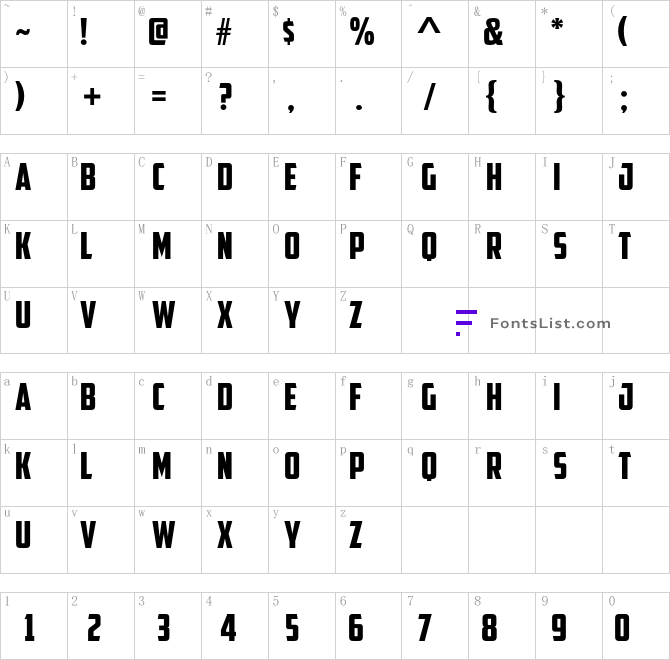
- Font Name:American Captain
American-Captain.otf is a very beautiful artistic font, American-Captain.otf is widely used in the design and printing of various books and pictures,American-Captain.otf has a strong visual impact,American-Captain.otf is a commonly used font in newspapers, magazines and books, and is used in posters, e-commerce Poster design, store design, logo design, font design and other fields.American-Captain.